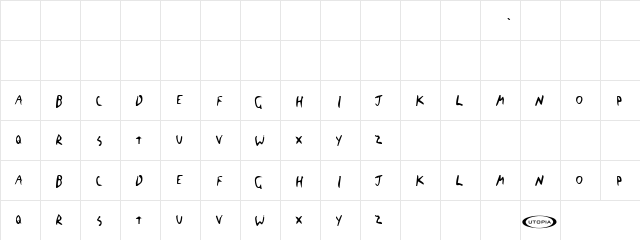
The Blick Font Regular
Design Context for The Blick Font Typeface
The Blick Font is a composed and adaptable typeface that performs quietly and consistently across a wide range of design contexts.